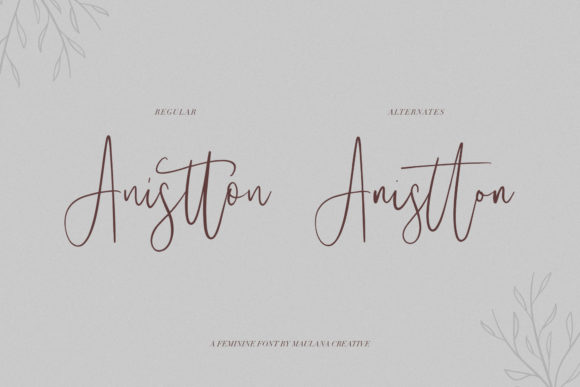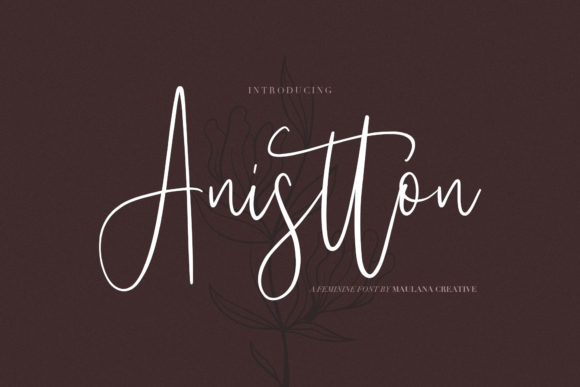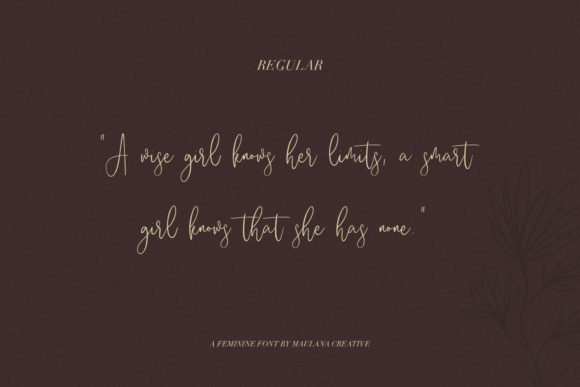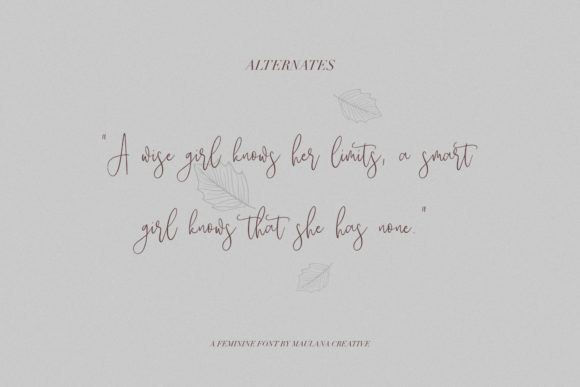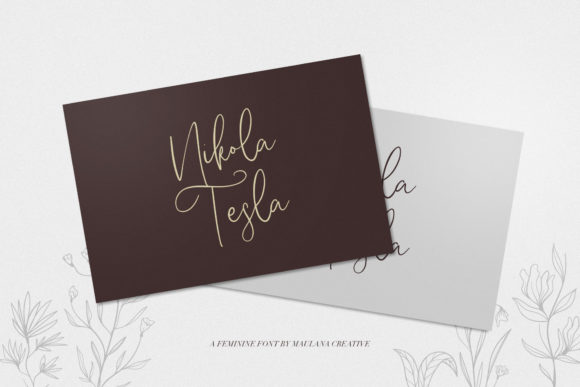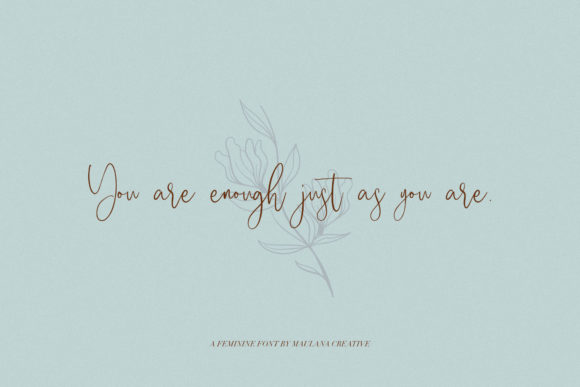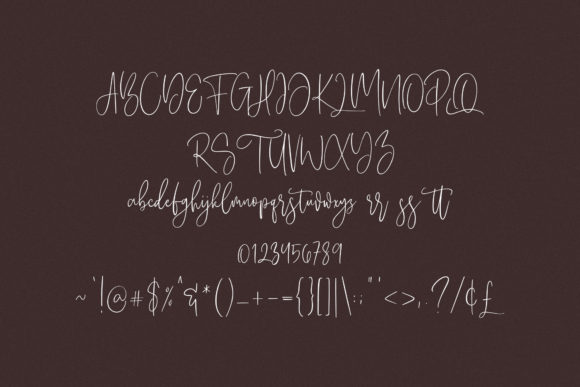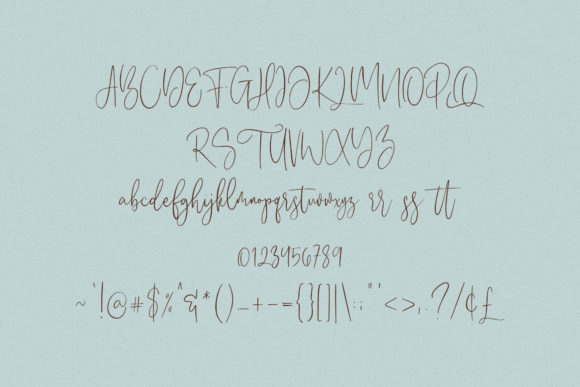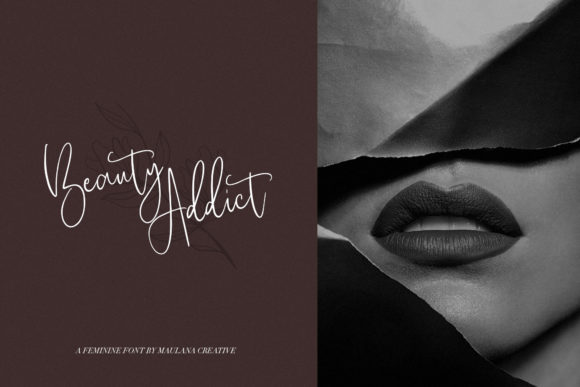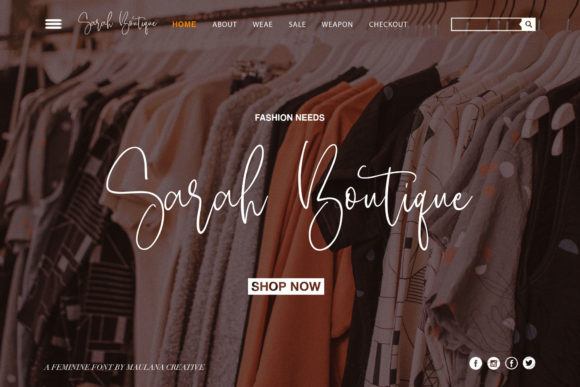
Anistton Font
About Anistton Font
Anistton is the perfect font for giving any designs a handwritten and authentic feel. This classic and original signature font feels both familiar and fresh.